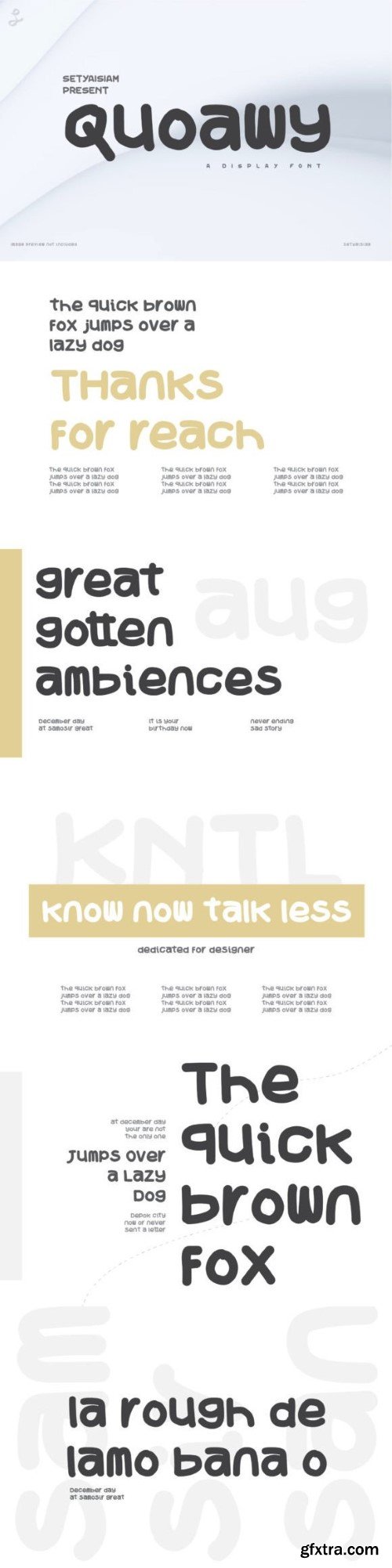
quoawy字体
Quoawy is a fun and quirky handwritten font. Whether you use it for cartoon-related designs, children's games, or just any creation that requires a lovely touch, this font will be an amazing choice.